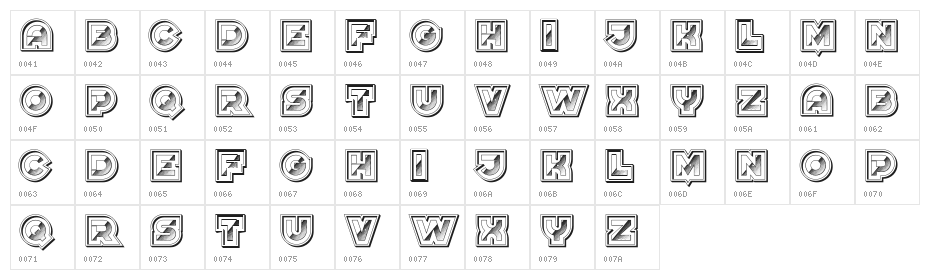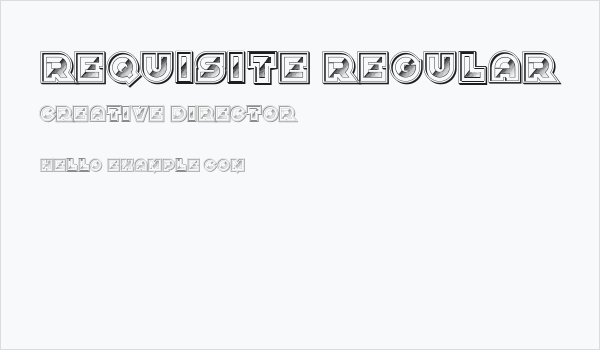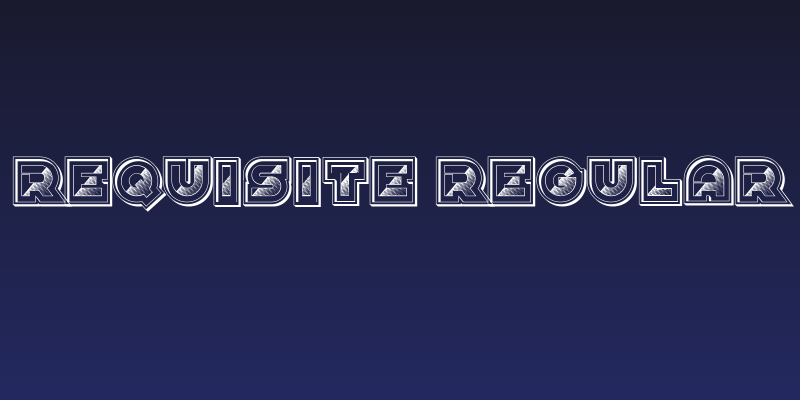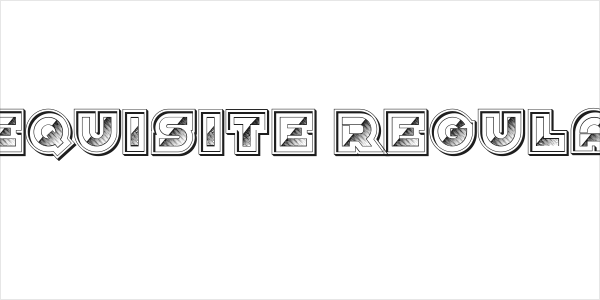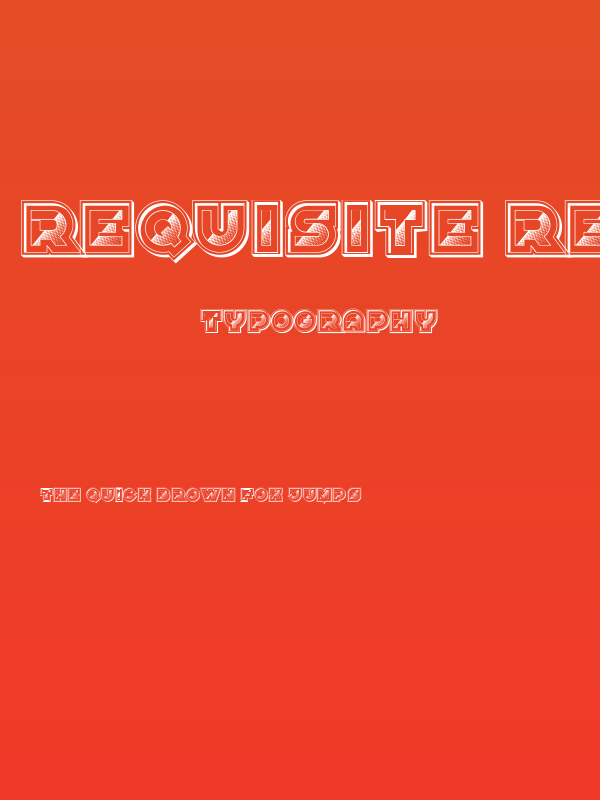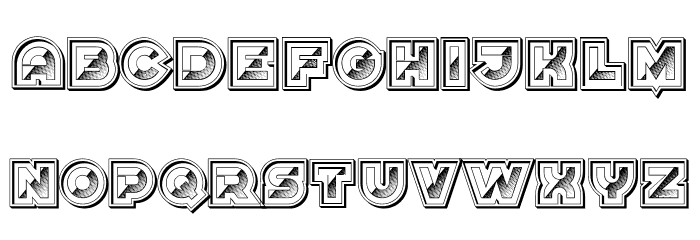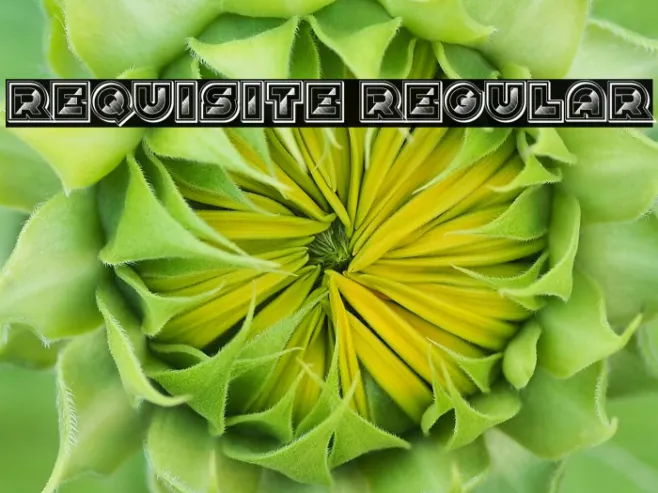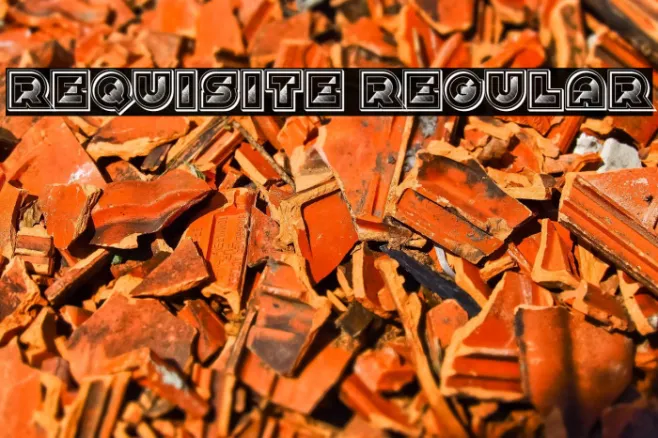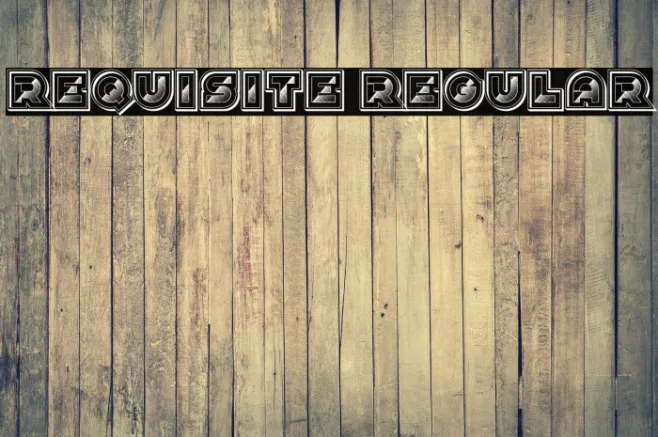
Requisite Regular Font
Requisite Regular Description
This font features a bold, decorative style with intricate line work and shading that gives it a three-dimensional appearance. The characters are enclosed in a box-like structure, enhancing the geometric and structured feel. The design incorporates a mix of solid and outlined elements, creating a striking visual contrast. The overall look is both modern and vintage, making it versatile for various design applications. The uppercase letters are particularly prominent, with each character displaying unique internal patterns that add depth and interest.
| Overall Style | Modern, Vintage |
| Proposed Projects | Ideal for use in posters, branding, packaging, and any project that requires a standout, artistic typeface. |